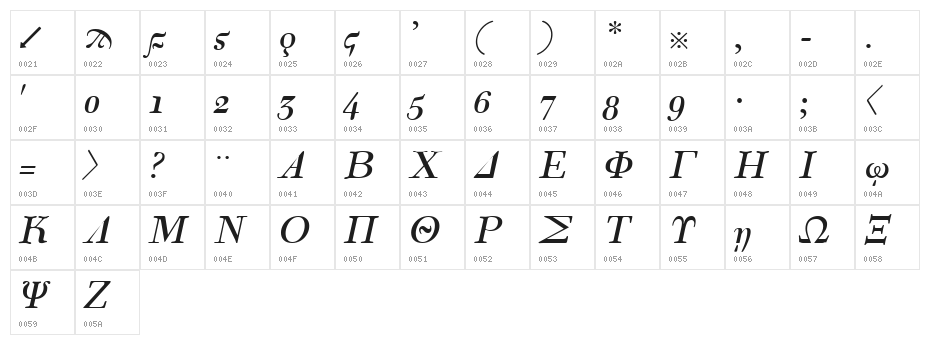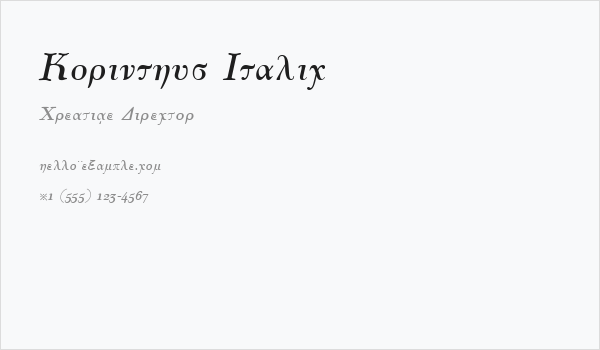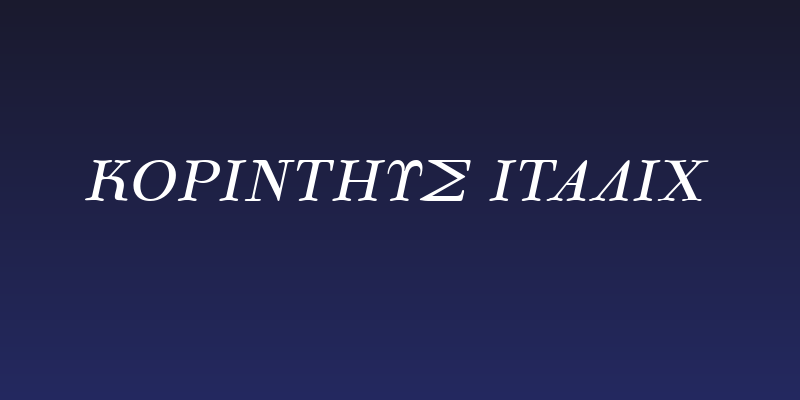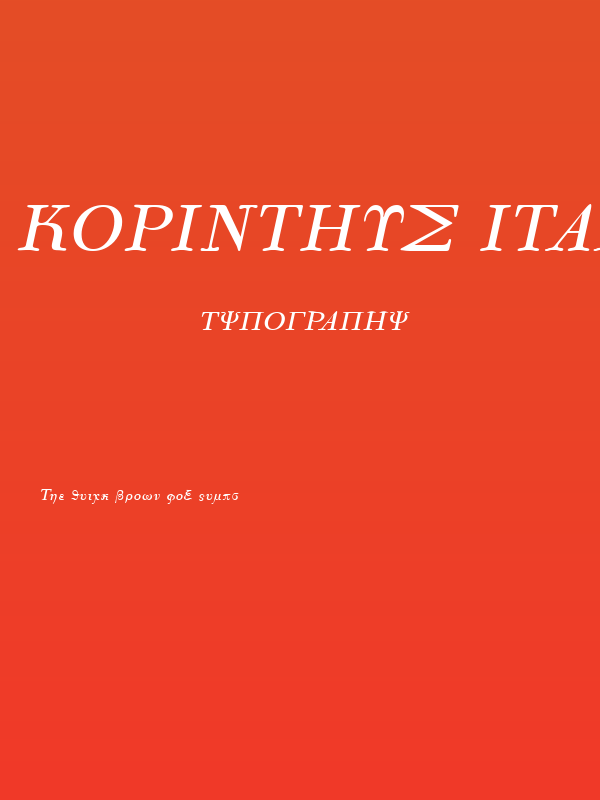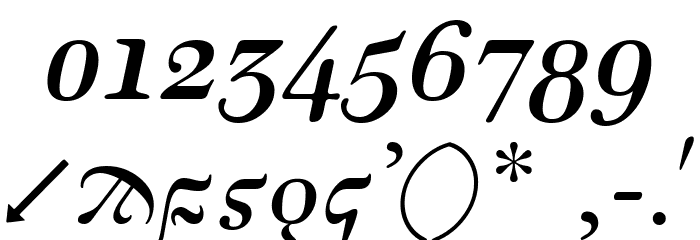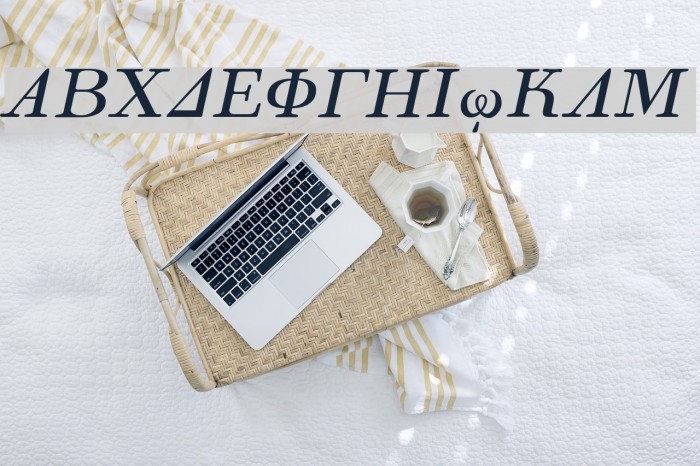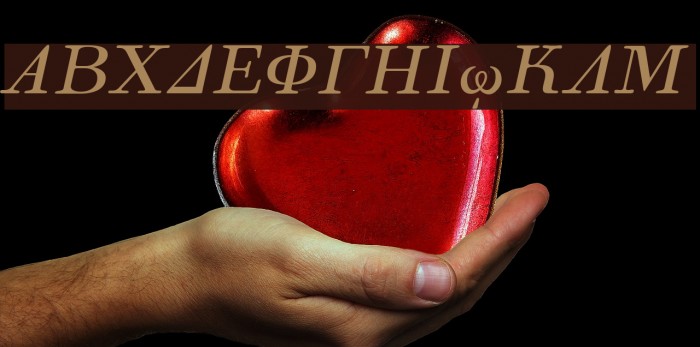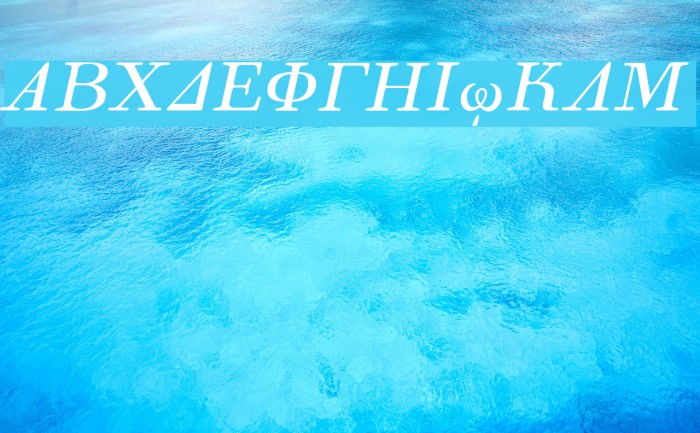
Korinthus Italic Font
Korinthus Italic Description
This font features an elegant and sophisticated design, characterized by its italicized style and classical Greek influences. The characters exhibit a graceful slant, enhancing the fluidity and dynamism of the text. The strokes are moderately thick, providing a balanced contrast that ensures readability while maintaining an artistic flair. The serif elements are subtly integrated, adding a touch of tradition and formality. The font's overall aesthetic is both timeless and versatile, making it suitable for a variety of applications where a refined and cultured appearance is desired.
| Overall Style | Classic |
| Use Case | Headlines, Body text, Logos |
| Proposed Projects | Ideal for academic publications, historical documents, formal invitations, and branding that requires a touch of classical elegance. |